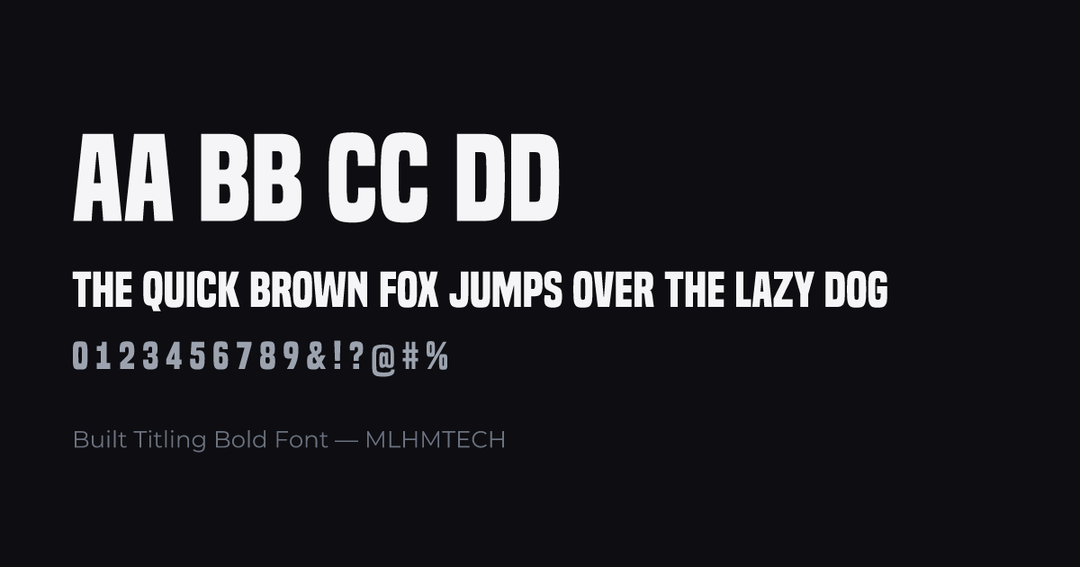
Built Titling Bold Font
Built Titling Bold is a versatile display font with a clean, modern aesthetic, ideal for impactful titles and branding in video and design projects.
Built Titling Bold is a high-contrast display typeface that commands attention. Its sturdy letterforms and geometric construction make it perfect for headlines, posters, and video titles that need to stand out.
This font is part of a handpicked collection, ensuring quality and uniqueness. Whether you're creating a cinematic title sequence, a bold logo, or a striking poster, Built Titling Bold delivers a professional and contemporary look.